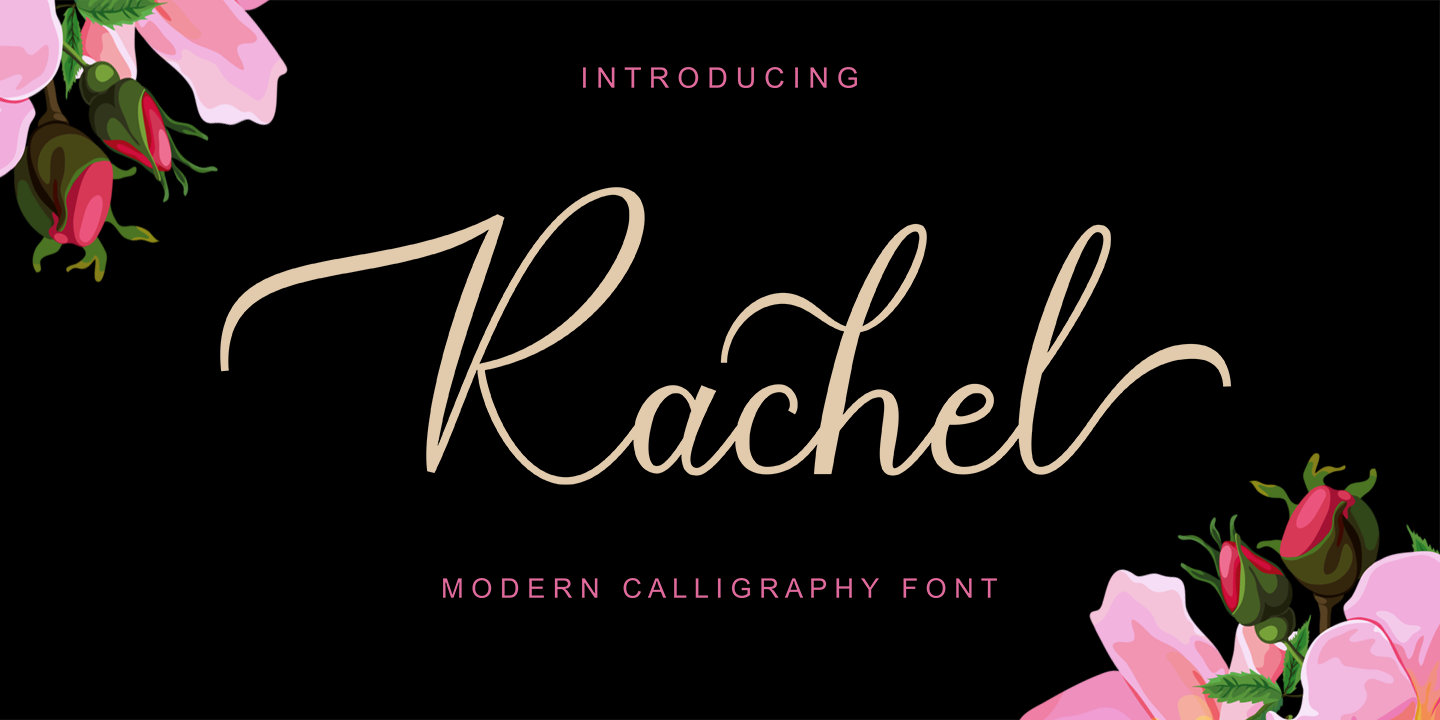
This graceful typeface is perfect for women's lifestyle magazines, beauty brand communications, feminine fashion labels, personal coaching businesses, wellness spa branding, romantic wedding invitations, elegant jewelry packaging, and sophisticated women's marketing that requires gentle sophistication and personal warmth with feminine elegance and approachable refinement.
Rachel Font is exciting because it beautifully captures the essence of modern femininity and personal connection through its softly elegant letterforms that convey warmth, intelligence, and sophisticated grace. The font's distinctive character design and feminine aesthetic reflect the contemporary woman's balance of strength and gentleness, making it perfect for brands that want to convey personal authenticity, feminine empowerment, and the kind of approachable elegance that resonates with women seeking genuine connection and sophisticated lifestyle experiences that honor both beauty and substance.
The Rachel Font family includes feminine variations and personal styling options, featuring light, regular, medium, and bold weights, along with elegant flourishes and women-focused design elements that provide feminine brands and designers with comprehensive typographic tools for creating authentic women's branding and sophisticated personal communications.
Connect with feminine grace using Rachel Font Free Download, a typeface that brings personal elegance to contemporary women's lifestyle and beauty branding projects. This exceptional font combines feminine sophistication with approachable warmth, making it an essential resource for women's brands, beauty companies, and designers working on lifestyle marketing targeted to sophisticated women. The gracefully crafted letterforms ensure beautiful readability while conveying the personal warmth and feminine elegance that defines this distinctly women-focused and authentically personal typeface.